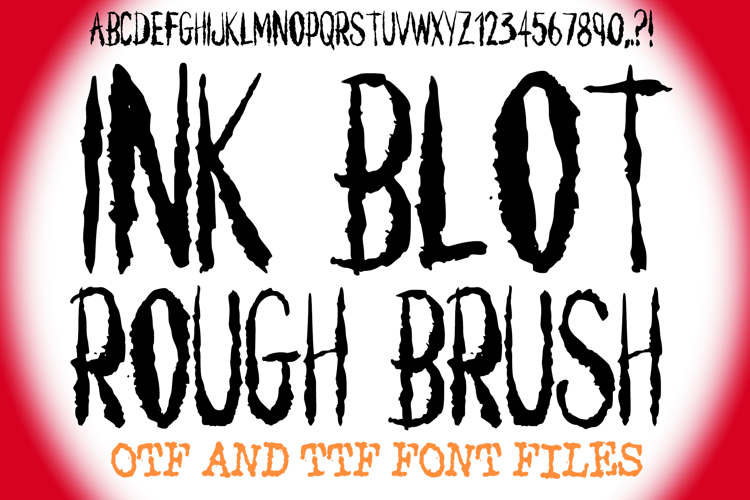
Ink Blot Rough Brush Lettering ABC Font Typeface Alphabet
Unleash a surge of raw, artistic energy with Ink Blot Rough Brush Font! This powerfully expressive typeface is meticulously designed to mimic the authentic, unpredictable beauty of hand-painted brush strokes and spontaneous ink blots. It's more than just a font; it's a statement of rebellious creativity, perfect for projects that demand a gritty, organic, and powerfully artistic presence.
Each character in Ink Blot Rough Brush Font features a bold, textured form with irregular edges and natural variations, as if rendered quickly and energetically by hand. The ink-blotched appearance adds a layer of authentic distress and an unpolished charm, making it an ideal choice for crafting impactful headlines, edgy logos, grunge-themed posters, dynamic social media graphics, urban streetwear designs, and expressive album art.
Whether you're aiming for a classic grunge aesthetic, a raw street art vibe, a handcrafted DIY feel, or simply a fiercely unique display, this font delivers with uncompromising style. Its clear yet powerfully textured strokes ensure readability while injecting a raw, artistic chaos that stands out dramatically from pristine digital typography.
If you're looking to infuse your designs with a sense of rebellion, genuine texture, and undeniable artistic credibility, Ink Blot Rough Brush Font is your ultimate tool. Let your creativity bleed onto the canvas!.